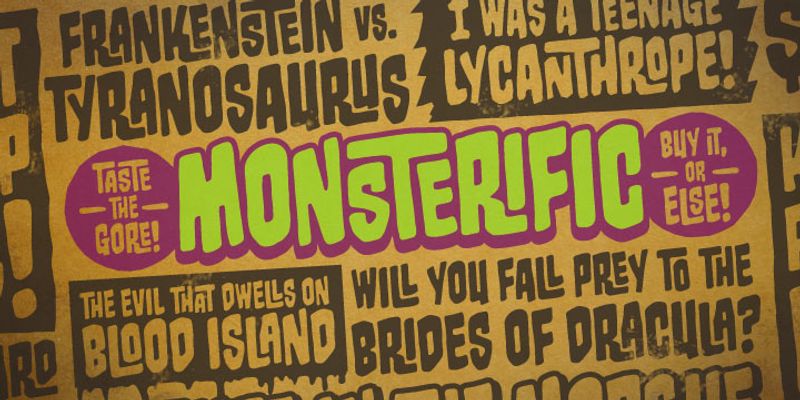
Monsterific BB was inspired by classic 70s horror magazine titles, and features a large complement of European characters and over 160 Opentype Autoligatures! Perfect for Halloween or any spooky time of the year!